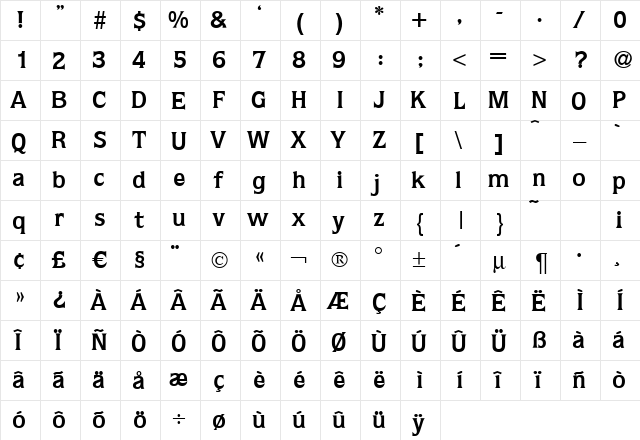
Q853-Flare Bold
Design Context for Q853-Flare Typeface
Q853-Flare is a composed and adaptable typeface that performs quietly and consistently across a wide range of design contexts. Its bold stroke weight gives it real presence on the page.